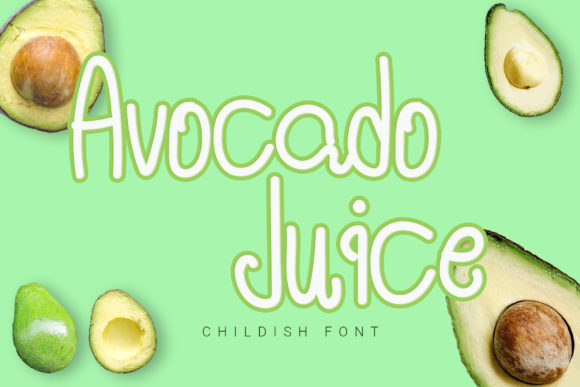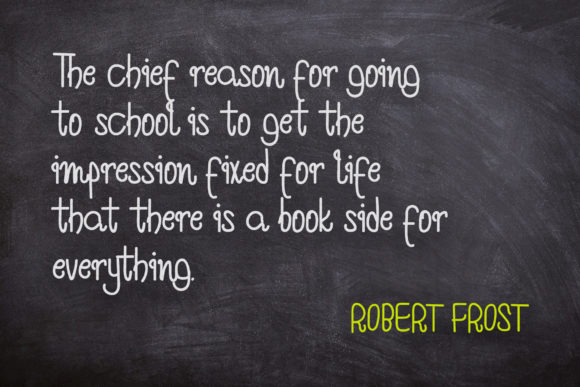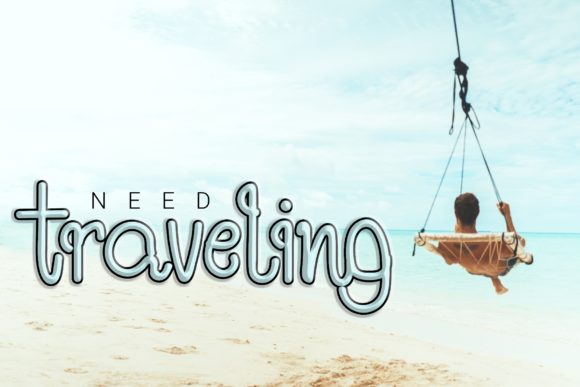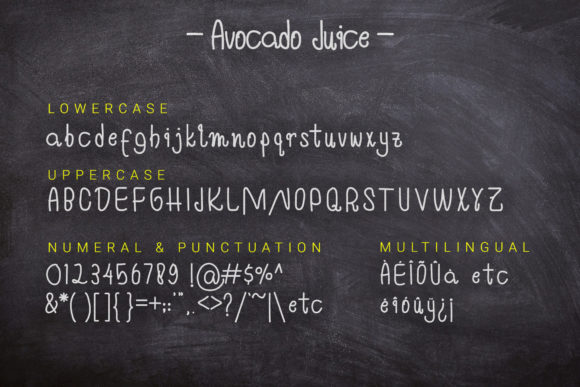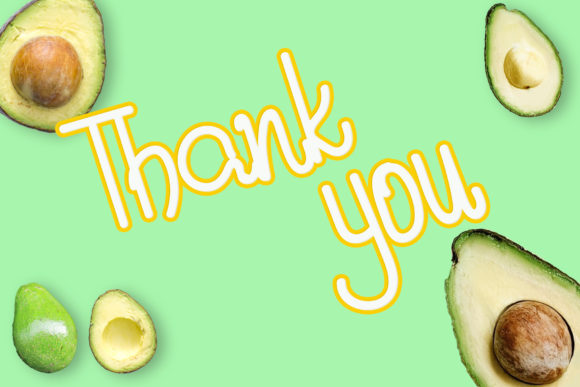
Avocado Juice Font
About Avocado Juice Font
Avocado Juice is a sweet, soft hand-lettered script. The playfully rounded characters make it the perfect font for creating stunning kids’ art. Avocado Juice will allow you to add a decorative touch within seconds. Get inspired by its authentic feel and use it to create eye-catching social media posts, cute greeting cards, and much more!